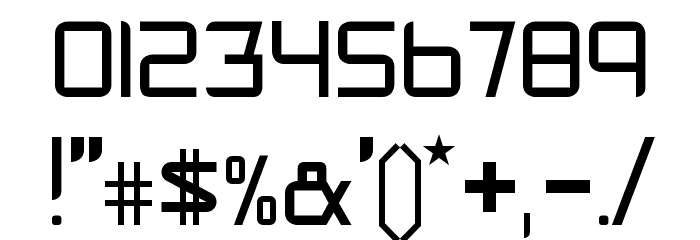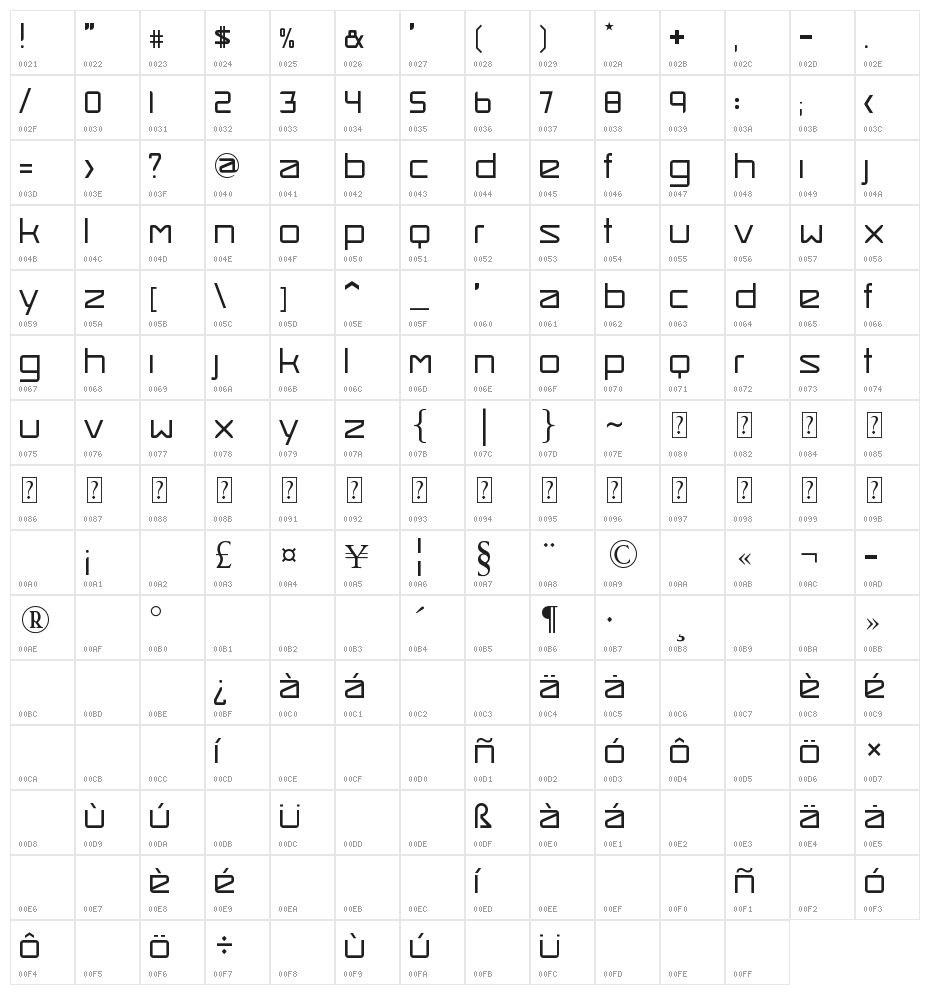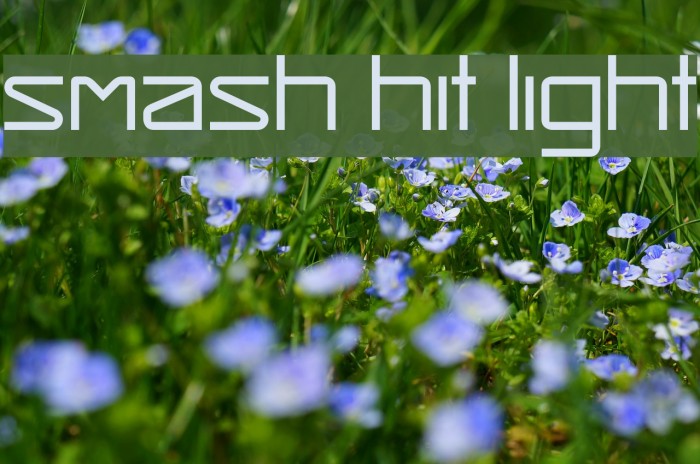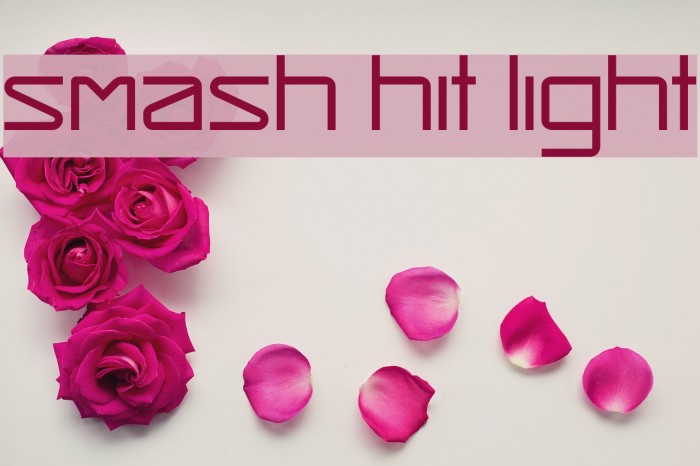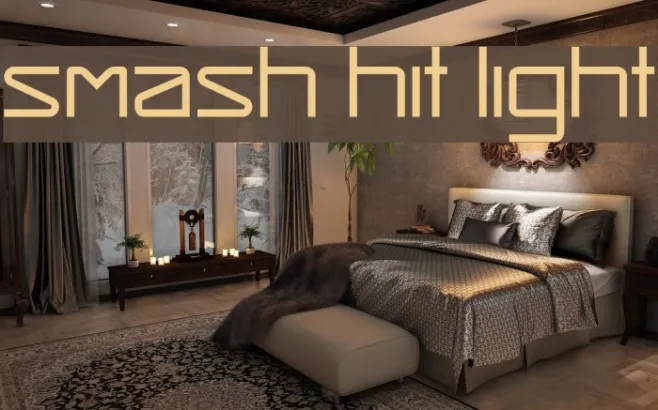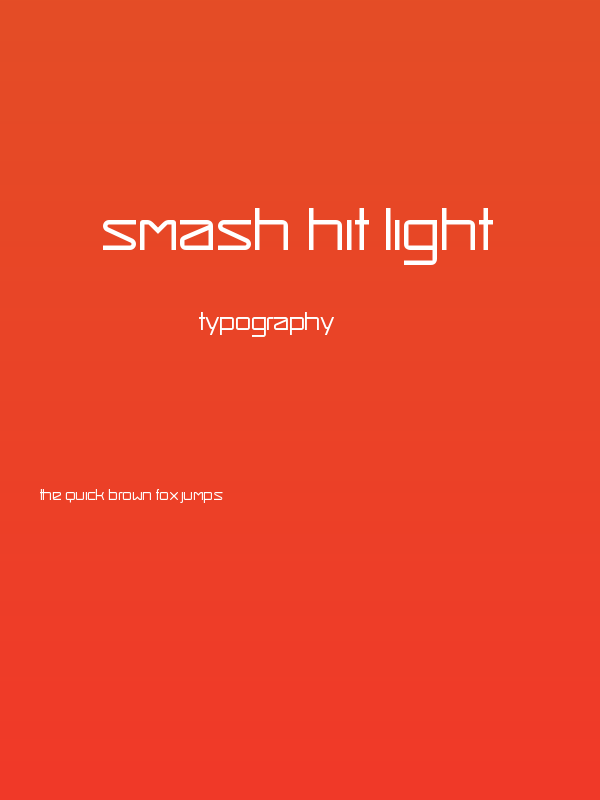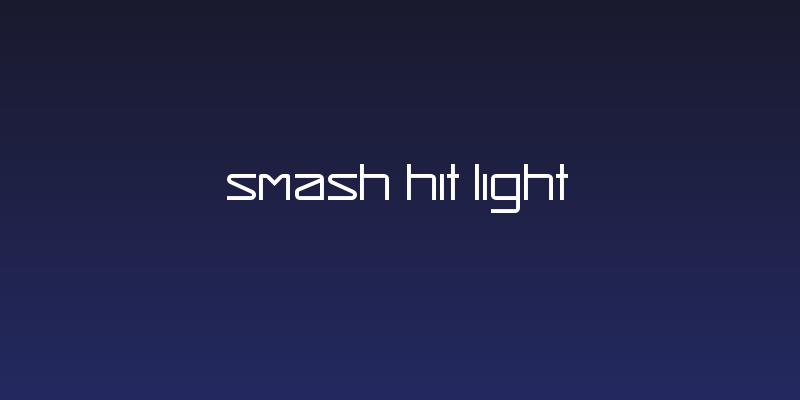
Smash Hit Light Font
Smash Hit Light Description
This font exhibits a modern, geometric style with clean lines and a minimalist aesthetic. The characters are constructed with a uniform stroke width, giving it a consistent and balanced appearance. The design is sleek and contemporary, with a slightly futuristic feel. The uppercase and lowercase letters maintain a uniform height, contributing to its orderly and structured look. The numerals and special characters are designed to match the overall style, ensuring a cohesive visual experience. This font is highly legible, making it suitable for various digital and print applications.
Use CaseHeadlines, Body text, Logos
Proposed ProjectsIdeal for tech branding, modern web design, digital interfaces, and minimalist print materials.